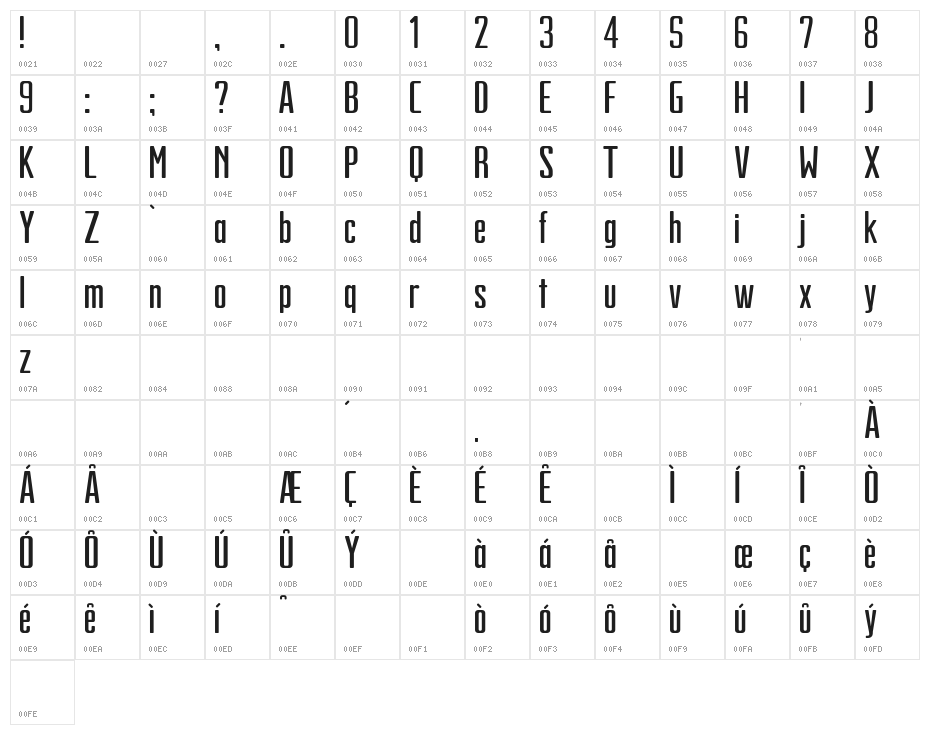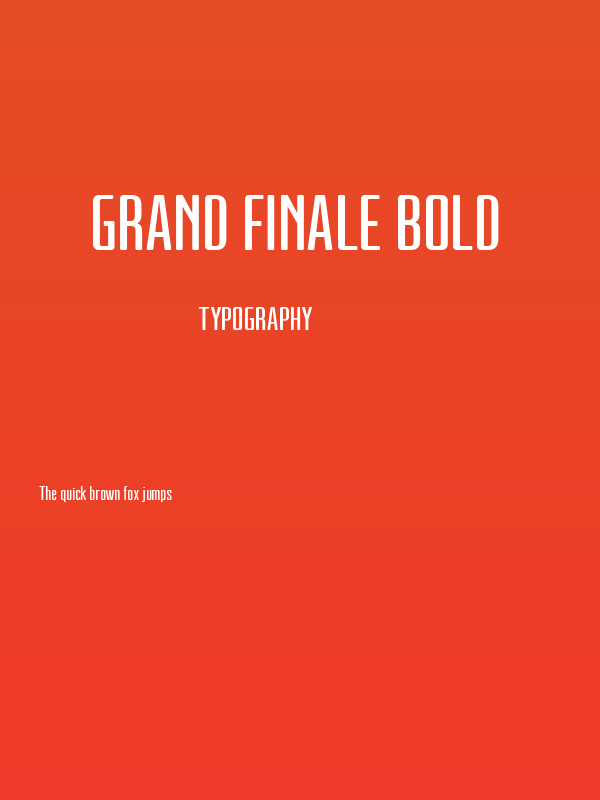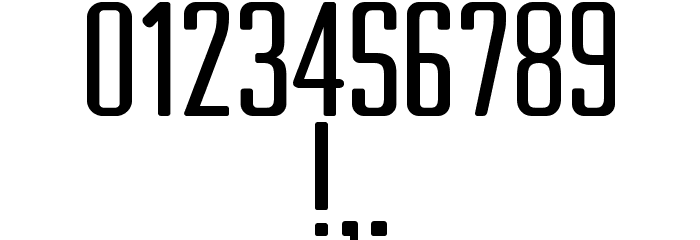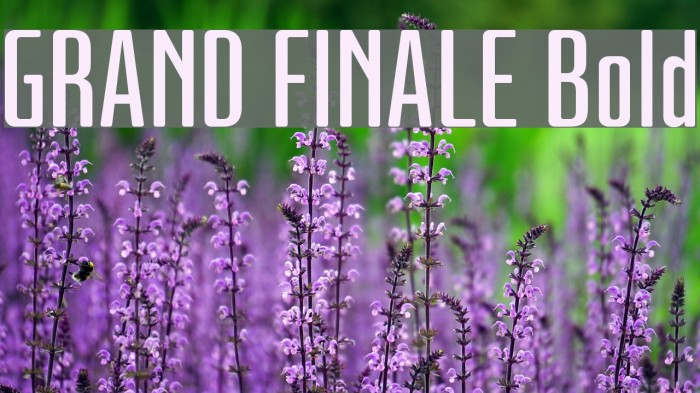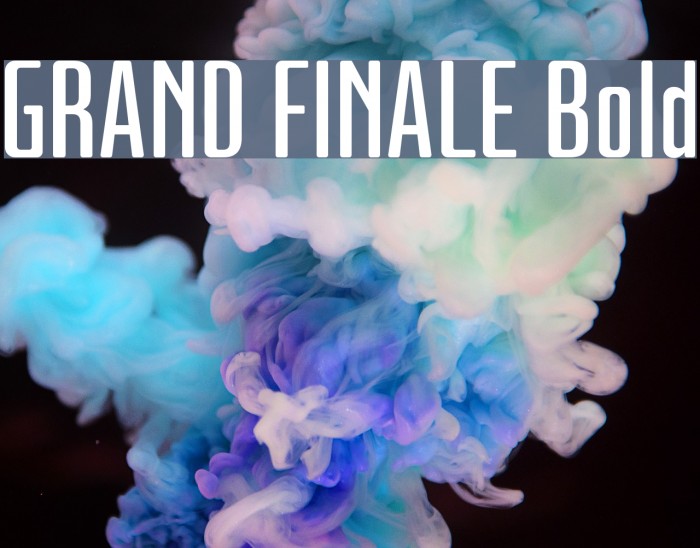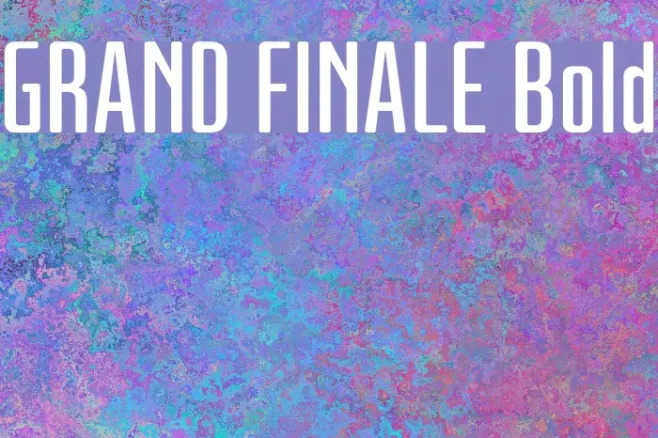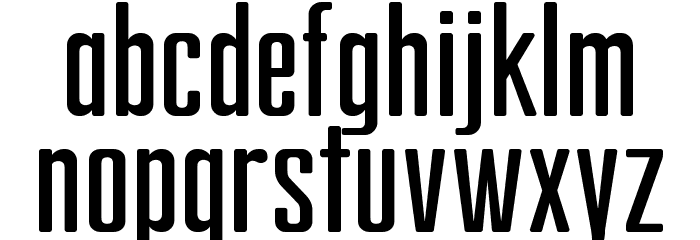
GRAND FINALE Bold Font
GRAND FINALE Bold Description
This font features a bold and modern design with clean, straight lines and a geometric structure. The characters are tall and narrow, giving it a condensed appearance. The uppercase and lowercase letters maintain a consistent style, with uniform stroke widths that contribute to a sleek and streamlined look. The numerals are equally bold, ensuring readability and balance across different uses. The special characters are designed to match the overall aesthetic, providing a cohesive and unified appearance. This font is ideal for making a strong visual impact while maintaining clarity and legibility.
| Proposed Projects | Ideal for headlines, posters, branding, and advertising where a strong visual impact is needed. |